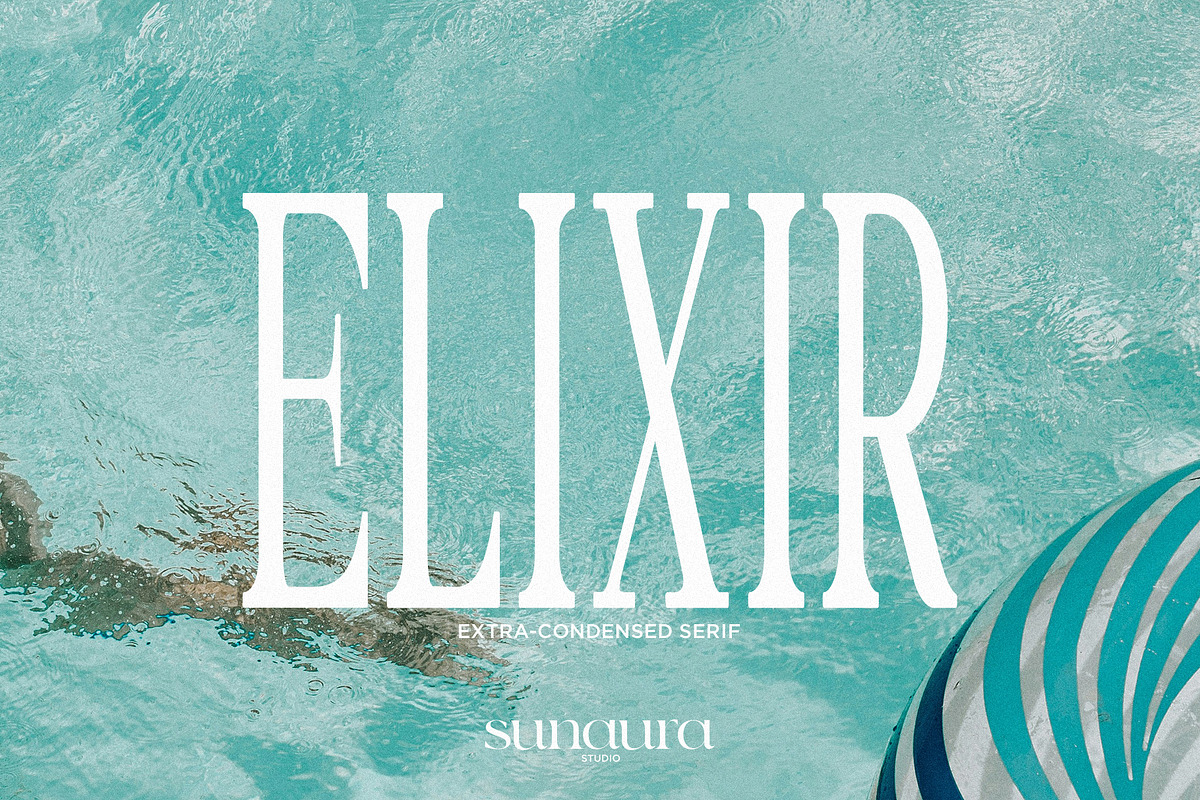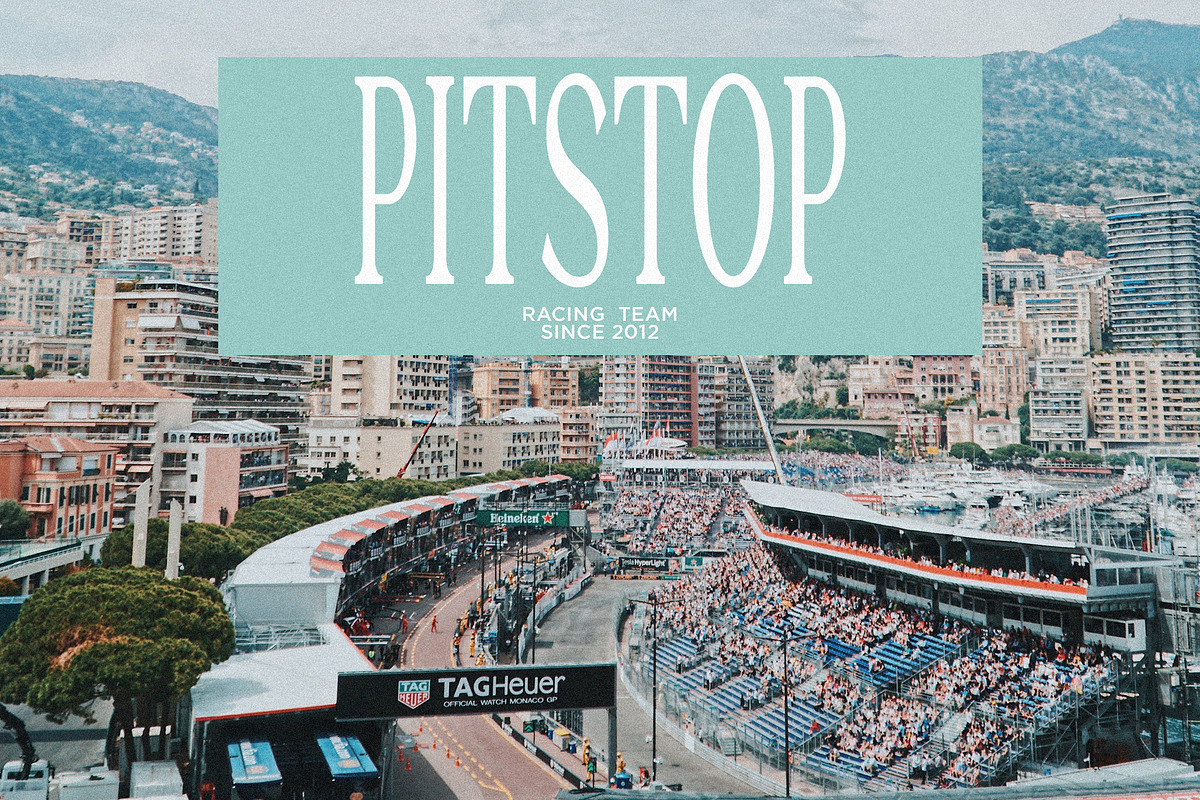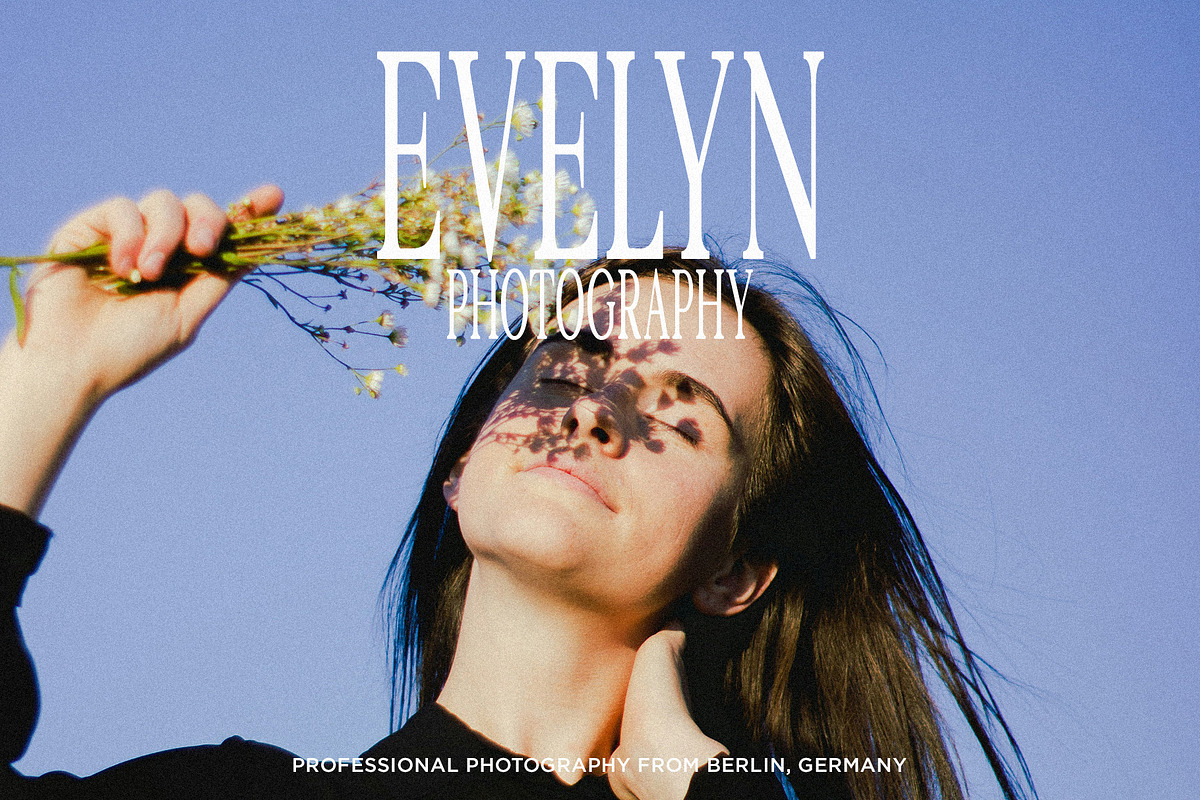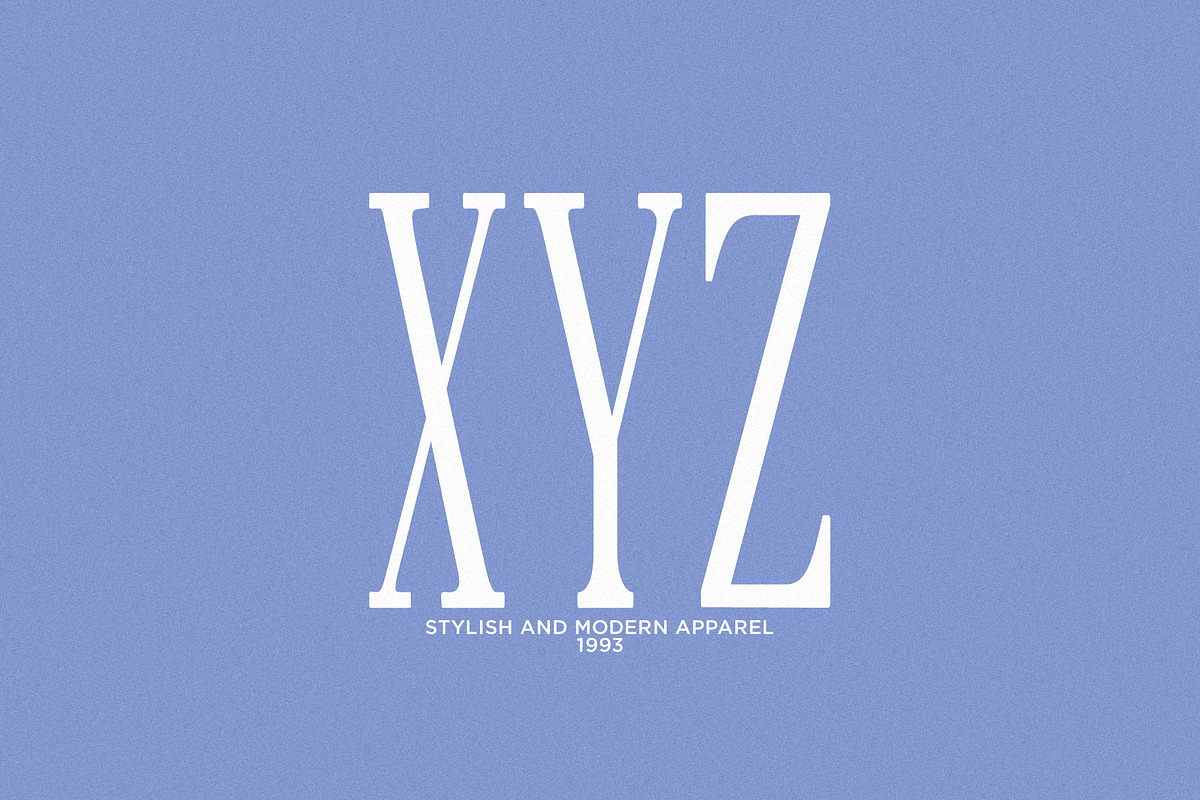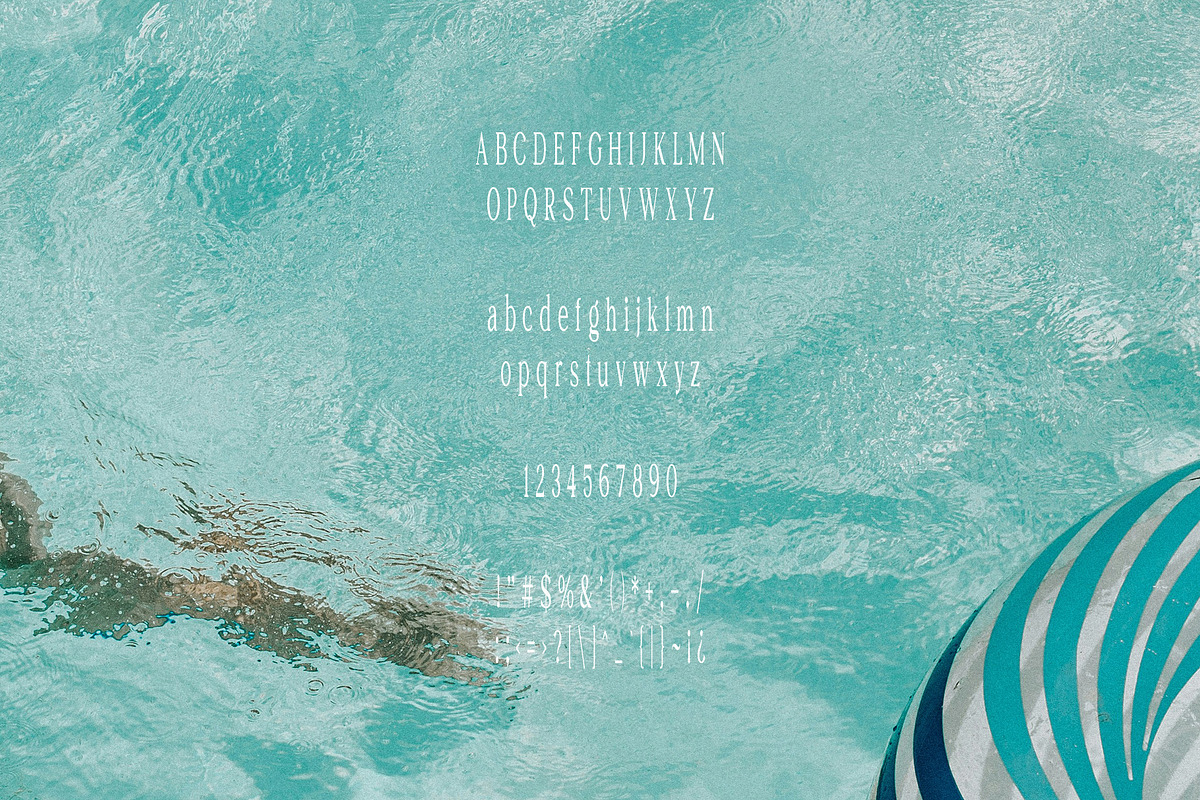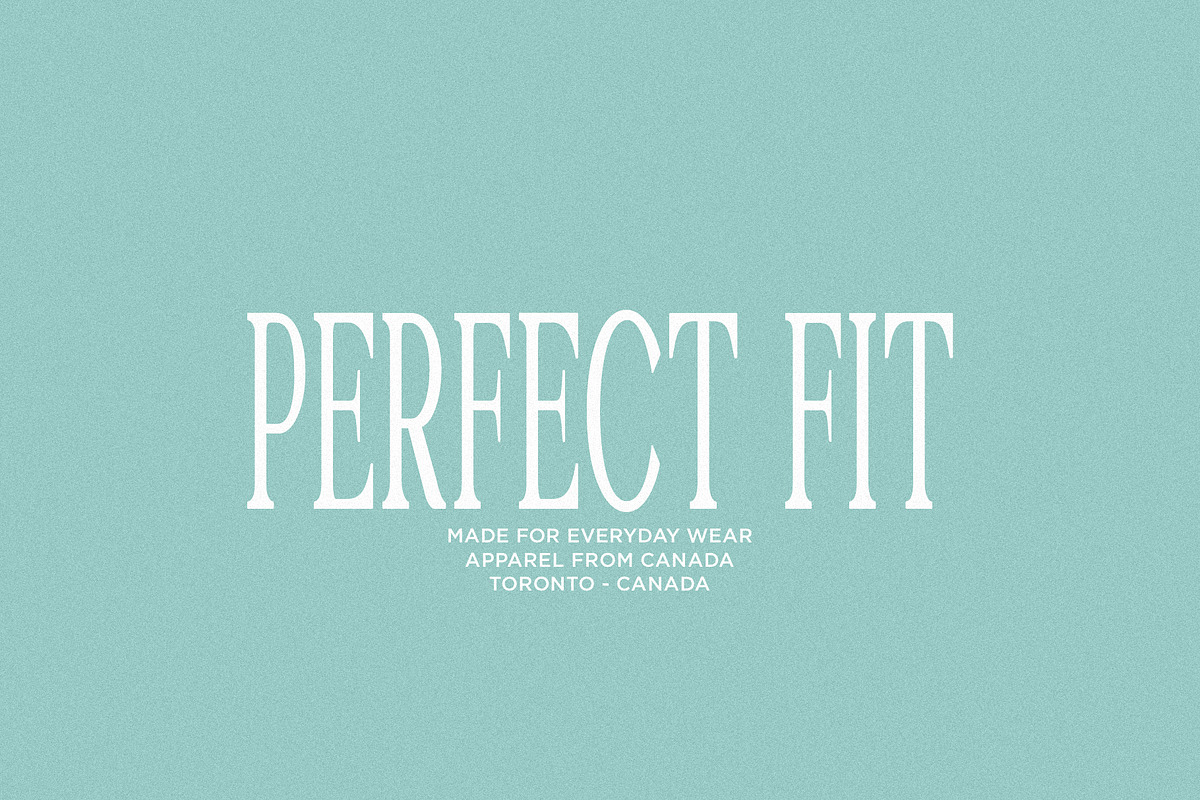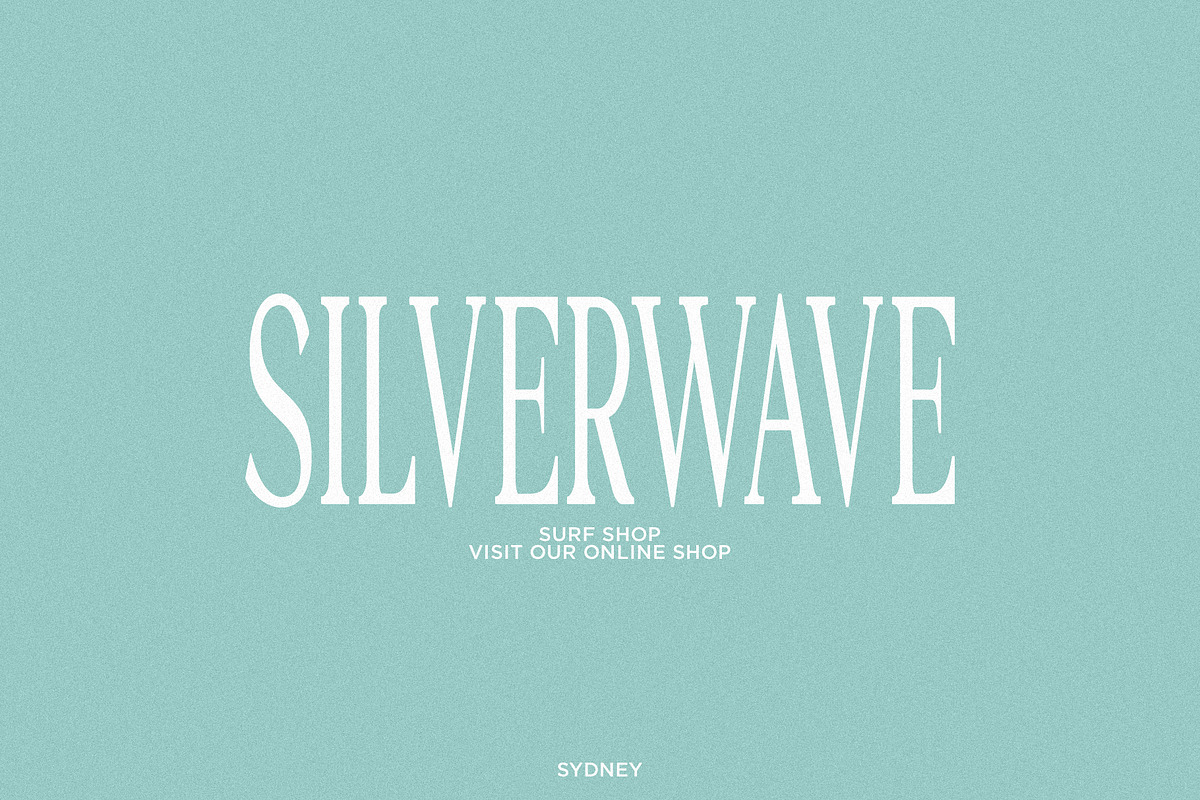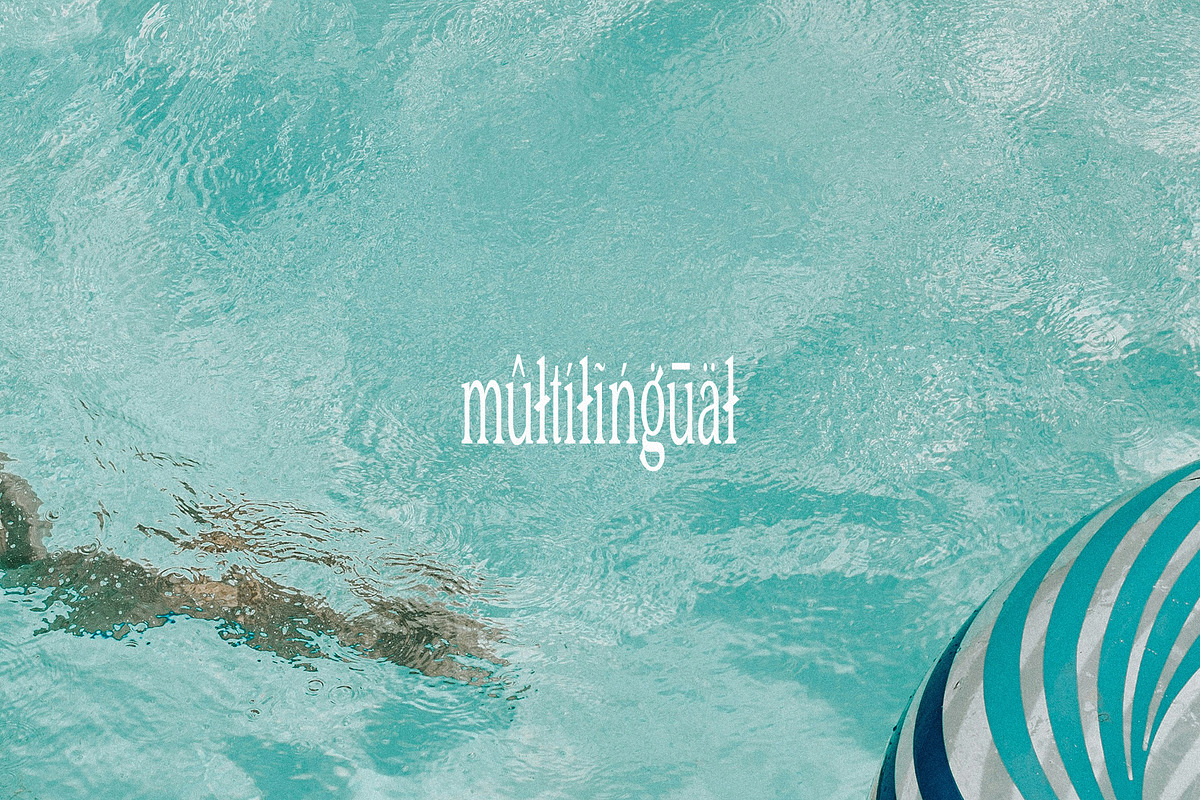
Elixir - Extra-Condensed Serif
ELIXIR is an extra-condensed serif typeface that features a sleek and modern design. Its narrow letterforms make it ideal for use in tight spaces or when a compact, sophisticated look is desired. ELIXIR's sharp serifs and clean lines give it a contemporary feel, making it a versatile choice for a variety of design projects. ELIXIR features multilingual support, over 250+ glyphs, uppercase & lowercase letters, numbers & symbols.